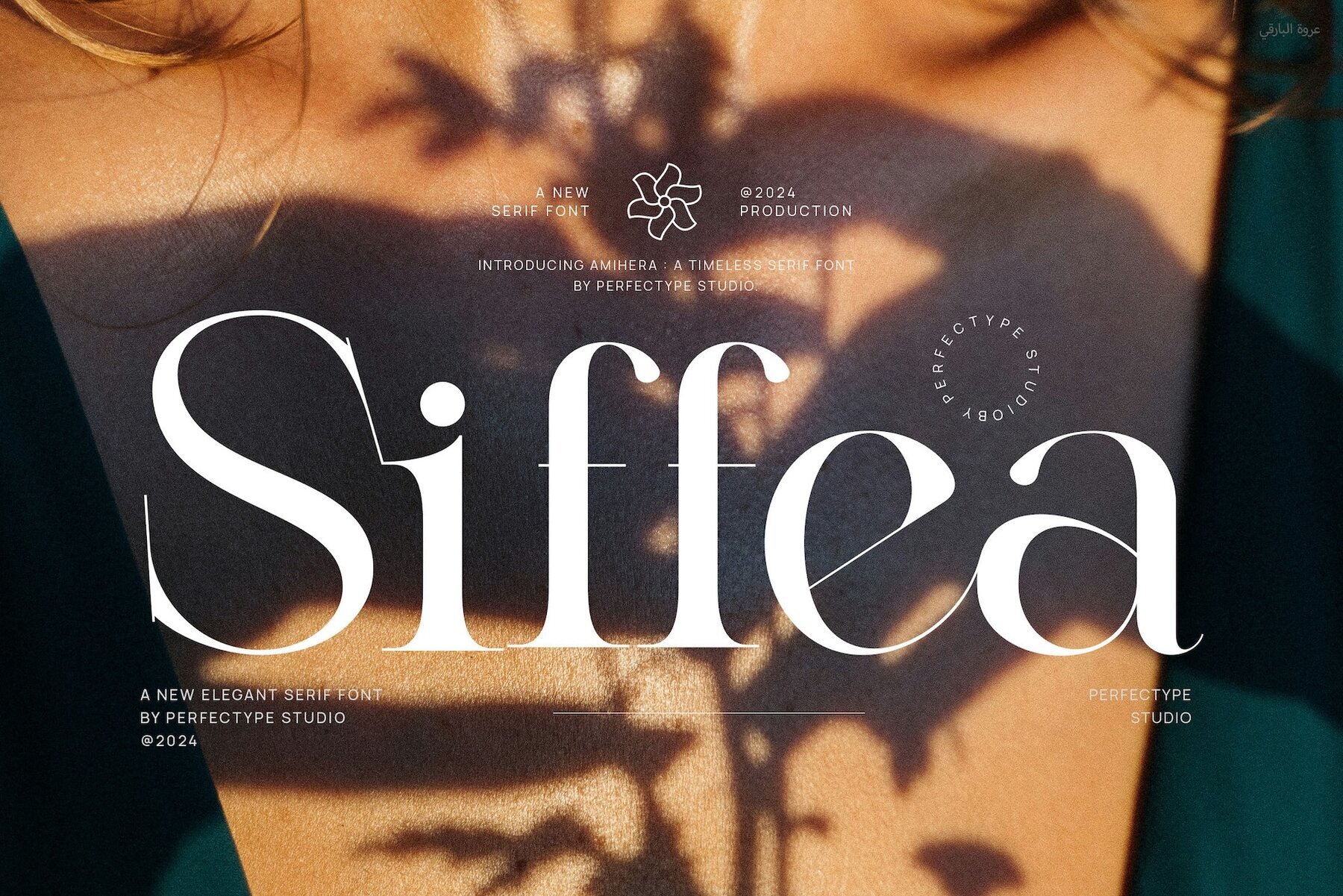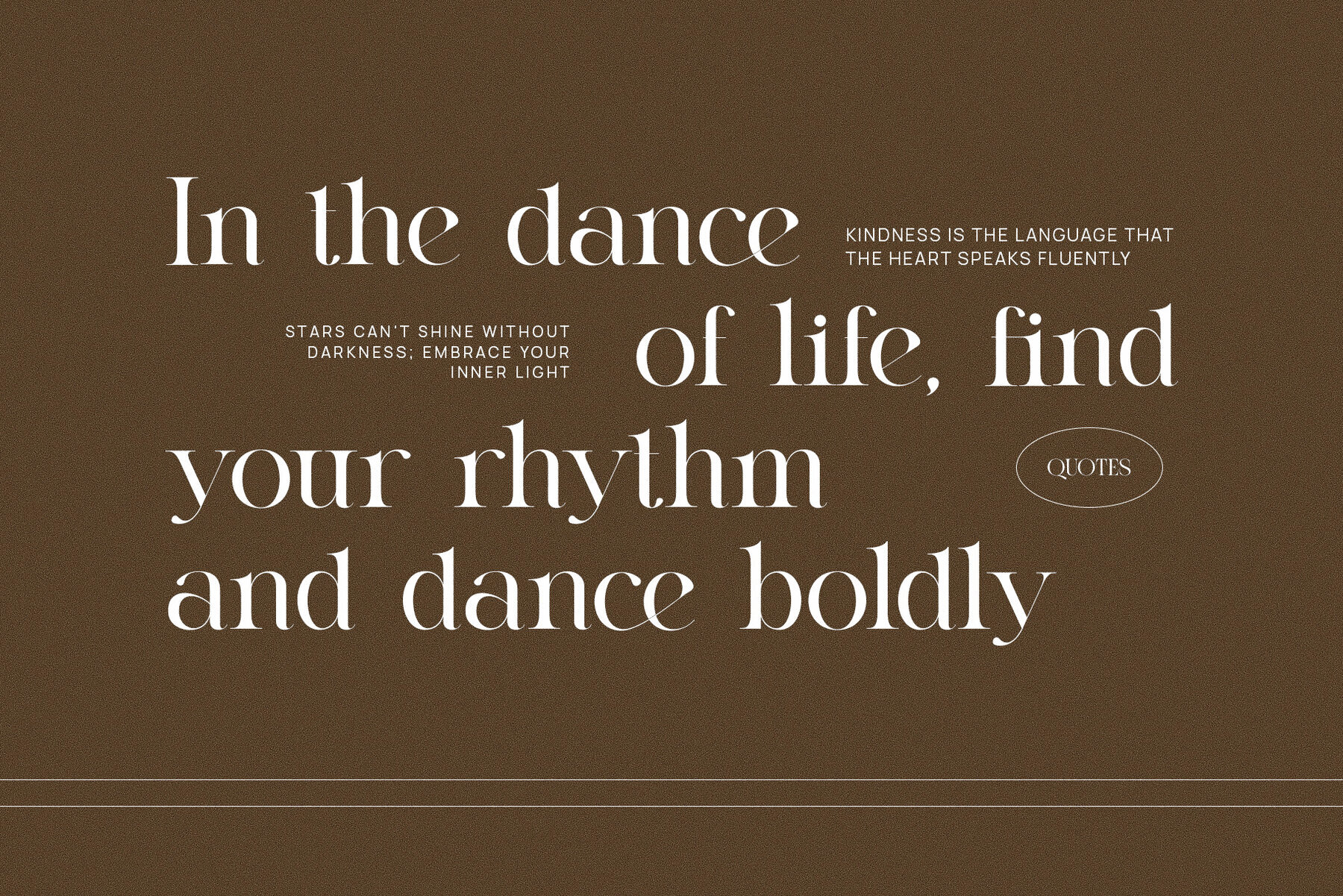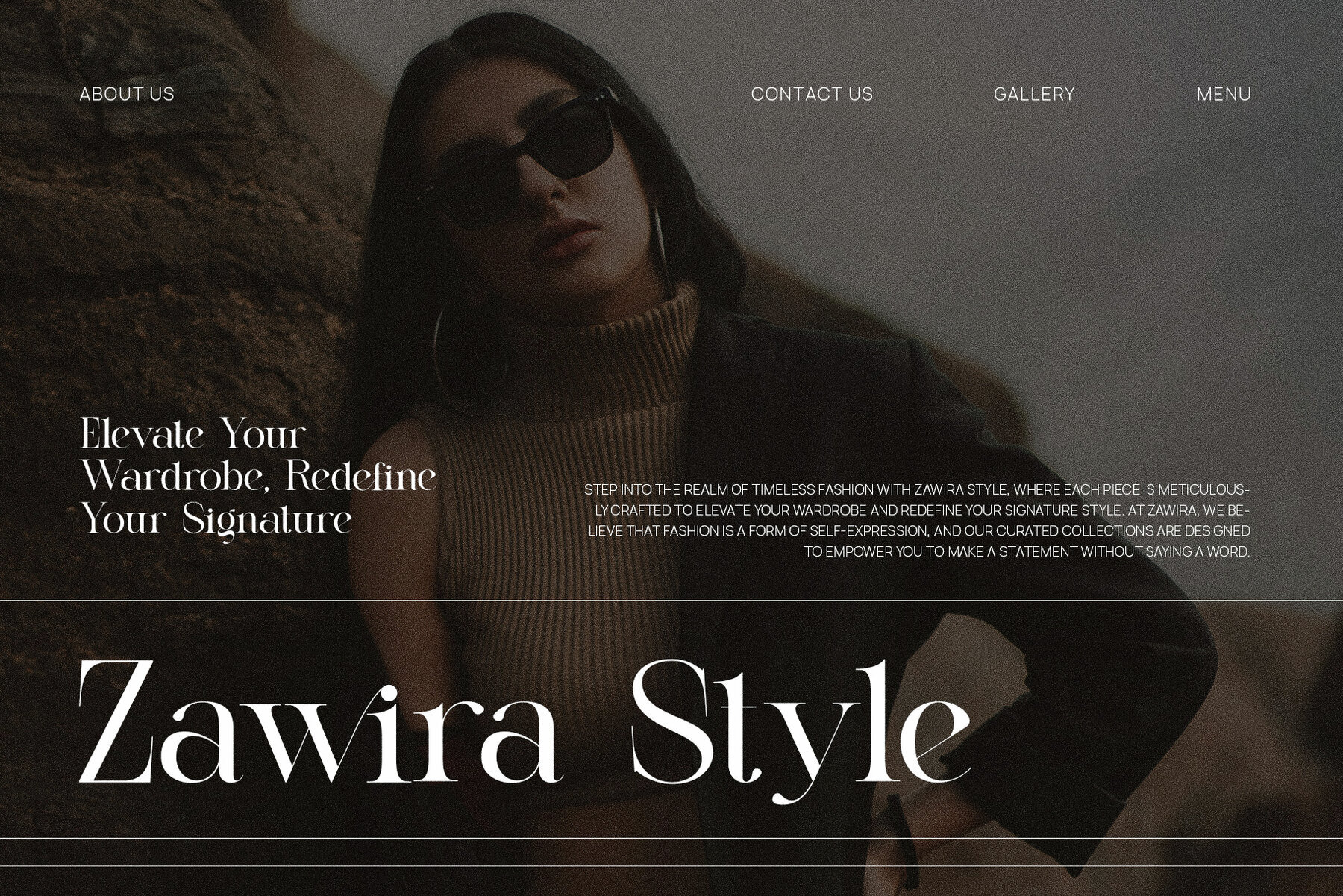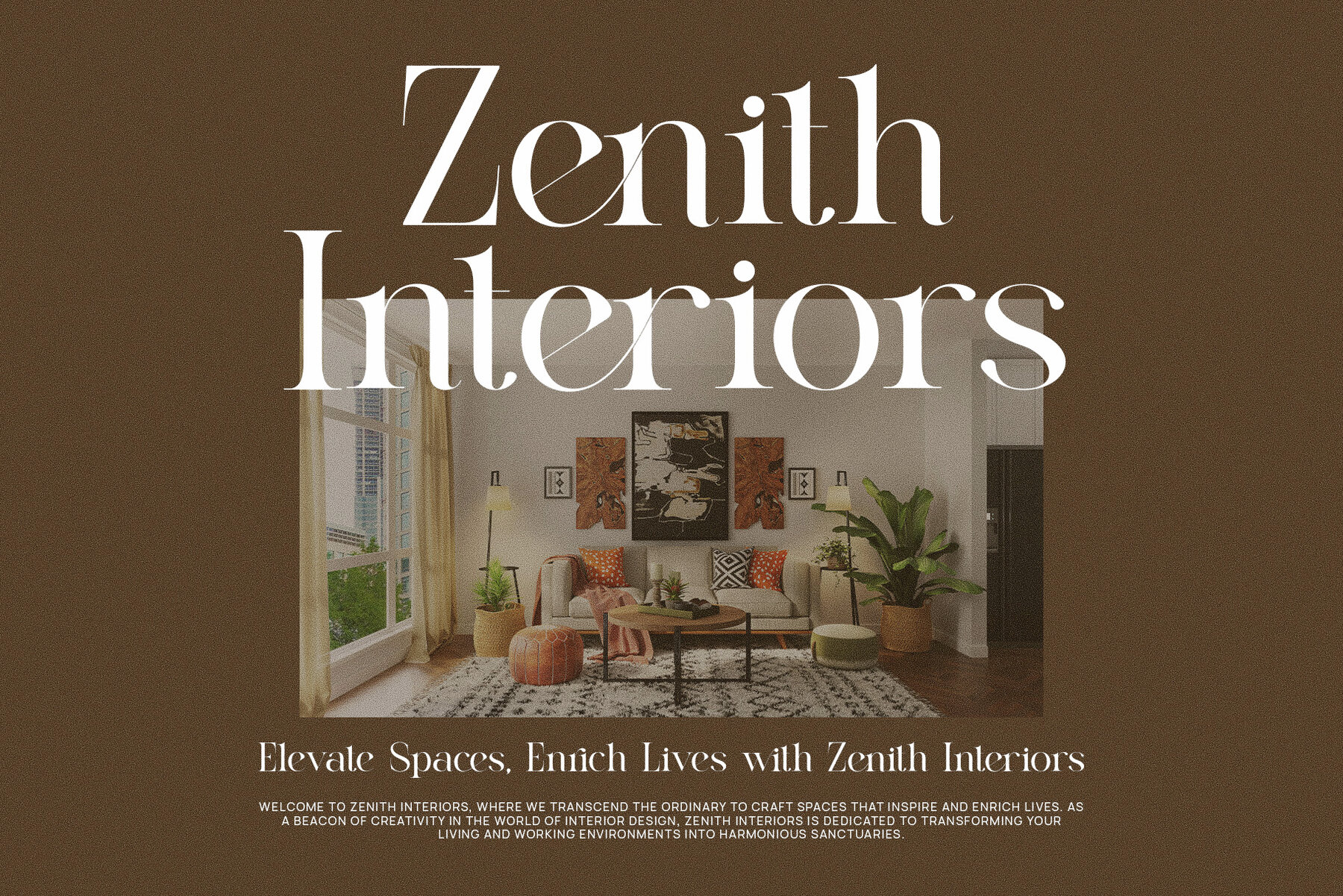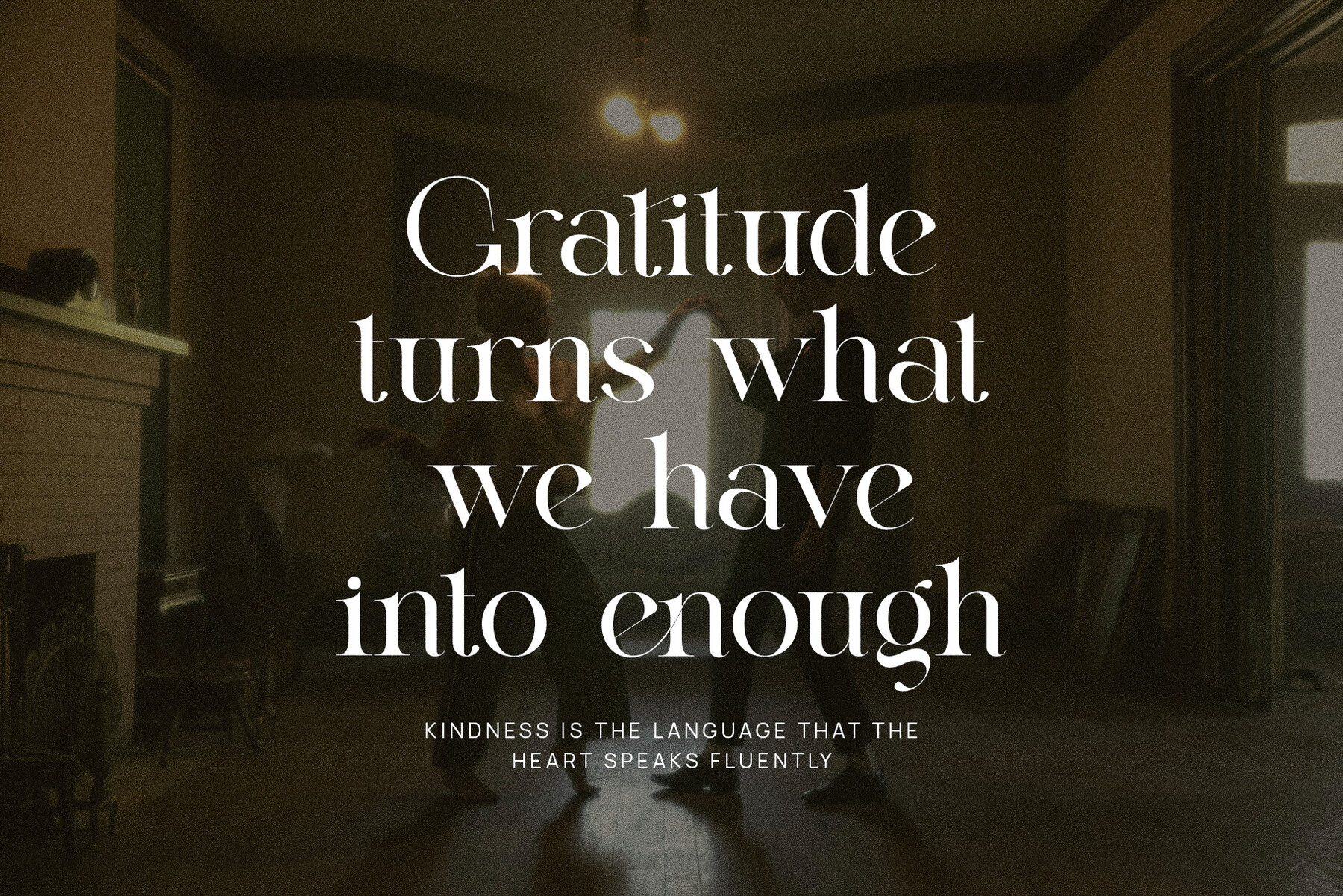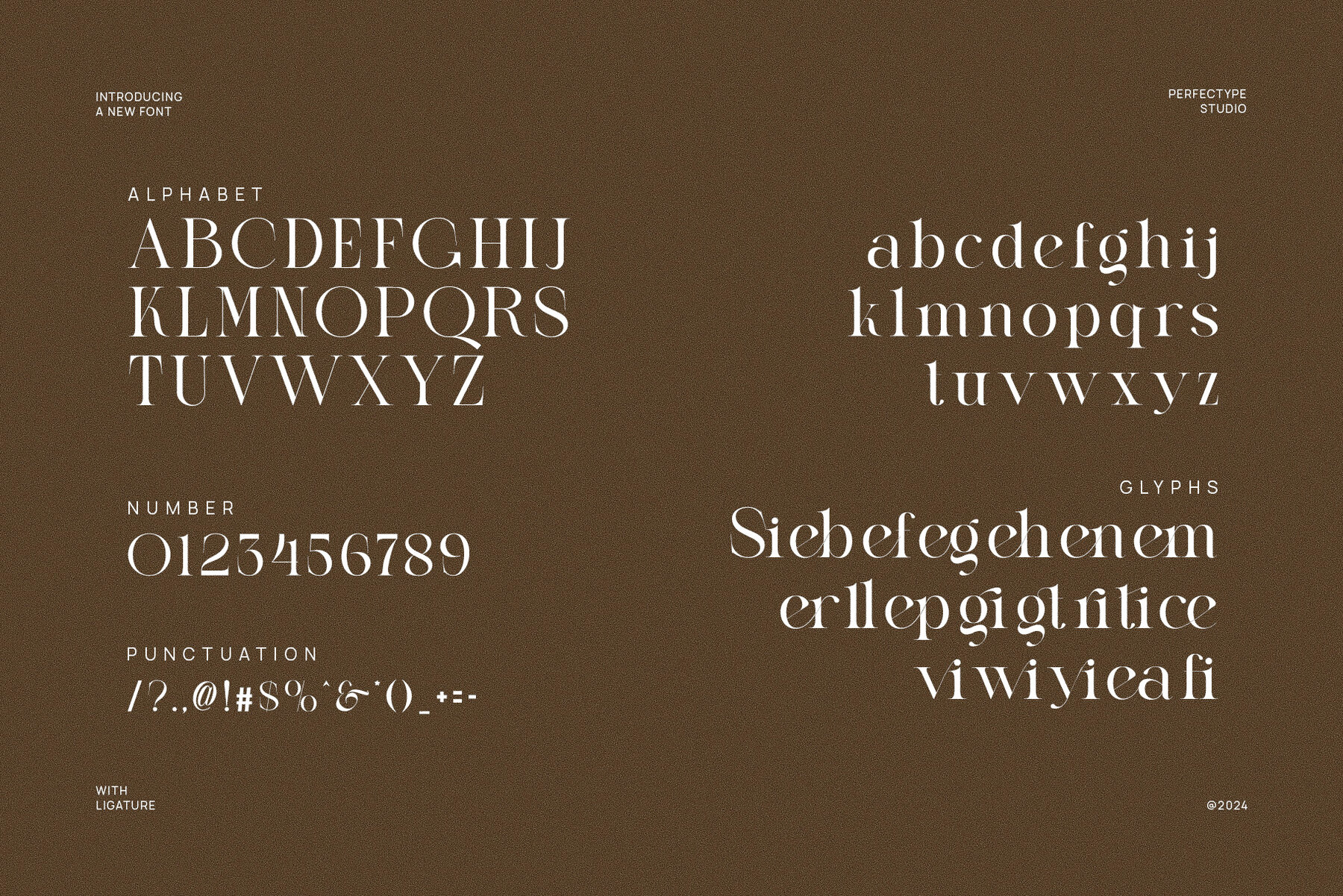
Siffea Font
Siffea
Siffea is an elegant serif typeface that merges timeless sophistication with modern flair. This contemporary serif font features refined curves and meticulously crafted details, making it ideal for high-end branding and creative projects. With distinctive character shapes, graceful ligatures, and versatile alternates, Siffea offers designers a myriad of options for creating visually striking and harmonious typography. Its adaptability is perfect for various design applications, from logos and brand identities to websites and product packaging.
Siffea's elegant yet accessible nature makes it an excellent choice for industries like fashion, luxury goods, food, and lifestyle brands. Whether designing a modern website, a stylish magazine layout, or a captivating advertisement, Siffea provides a refined touch that enhances the overall aesthetic. Its clean lines and balanced proportions ensure effectiveness in both headlines and body text, delivering sophistication without sacrificing readability. The font's alternate characters and ligatures further enhance creativity, allowing for unique typography that stands out. Choose Siffea for a modern, versatile serif font that conveys elegance and professionalism, bringing luxury and charm to your designs.